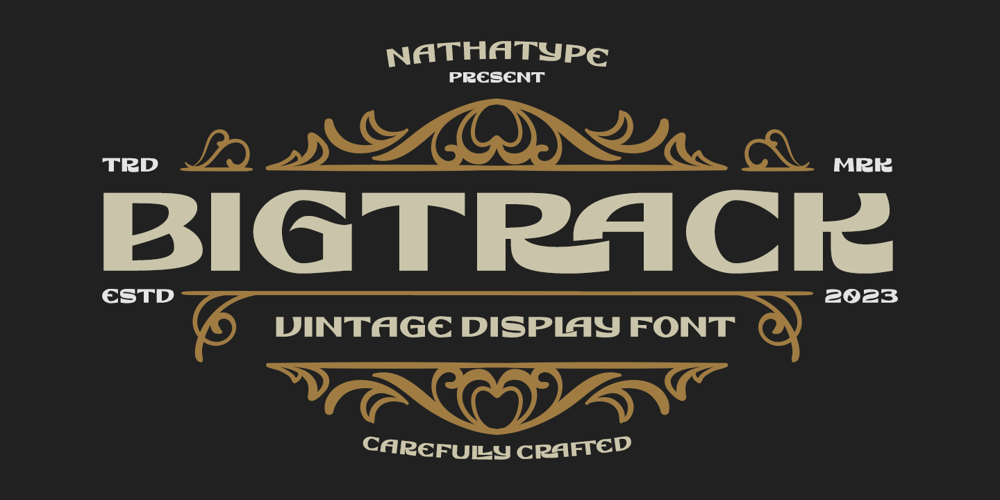
Bigtrack Font Family was designed by Donis Miftahudin and published by Nathatype. Bigtrack contains 1 styles and family package options. Bigtrack is an uppercase display font with vintage looks. Their sharp corners and clean lines exude a sense of strength and confidence. With its heavy weight, this font ensures that your message stands out with authority. The generous spacing between characters adds to its legibility and imparts a sense of grandeur to your text. As a special bonus, this font includes ornaments. Bigtrack fits in headlines, logos, branding materials, and many more.